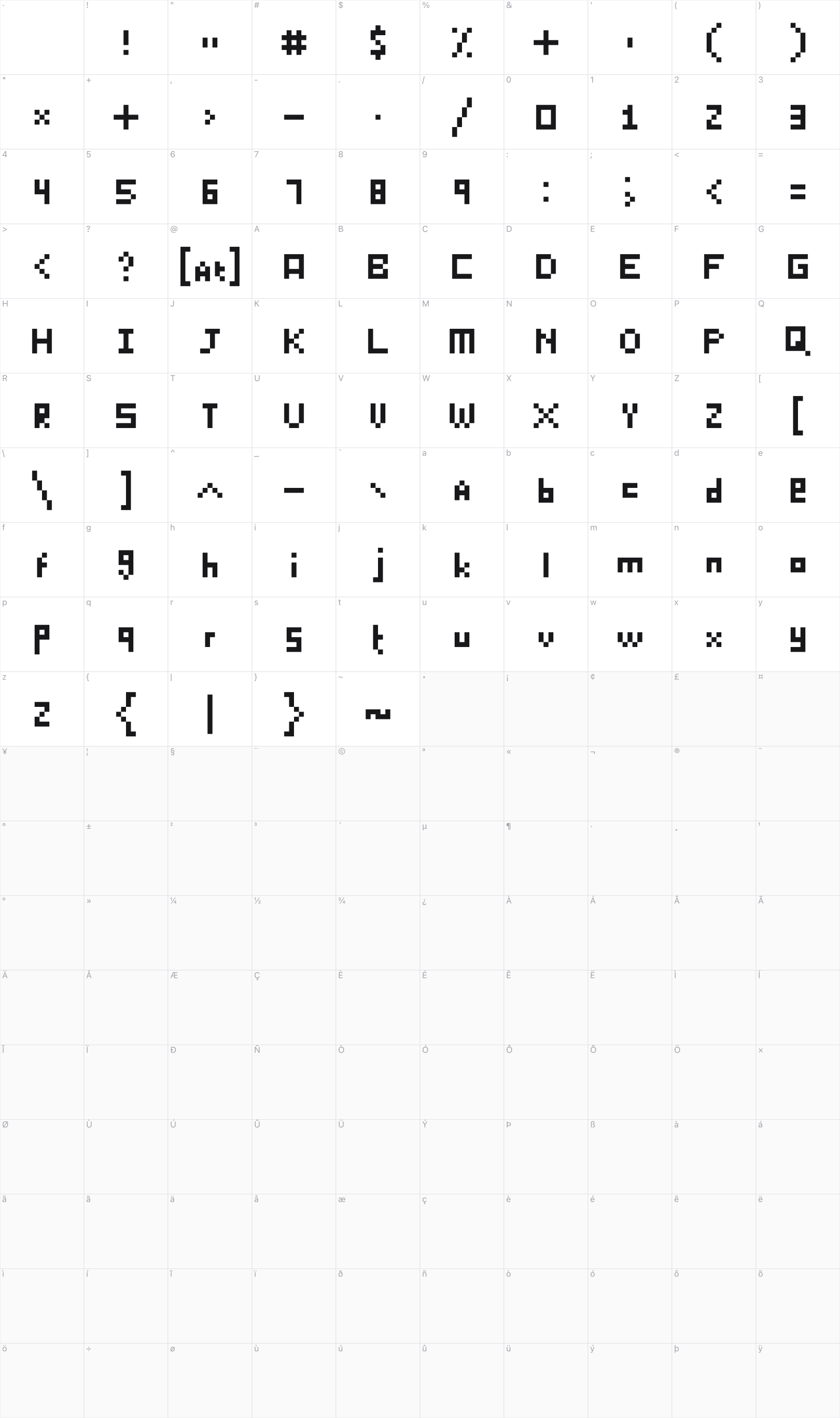
Killer Lasagna
by Matt Bruinooge
Killer Lasagna is a bold pixel face from Matt Bruinooge with chunky, blocky letterforms that feel ripped from an 8-bit title screen. The characters are heavy and unapologetically digital, built for headlines, game UIs, and retro-themed projects where you want that unmistakable arcade-era punch. The name alone tells you it doesn't take itself too seriously.